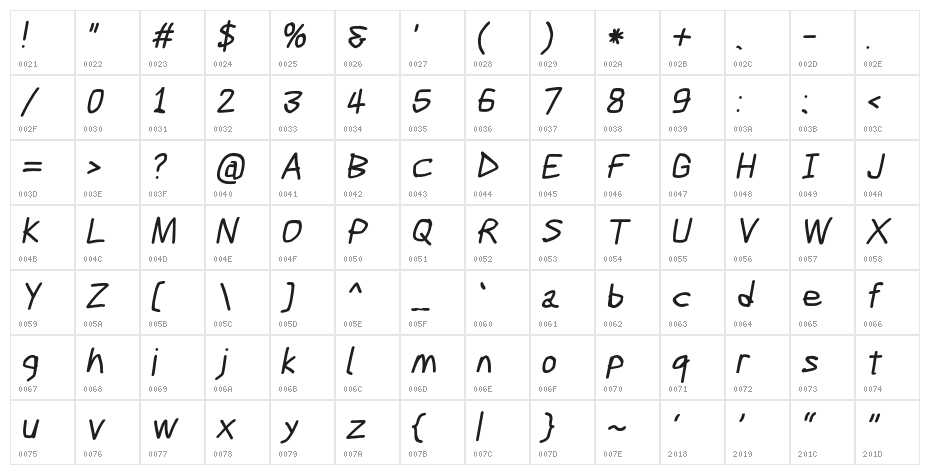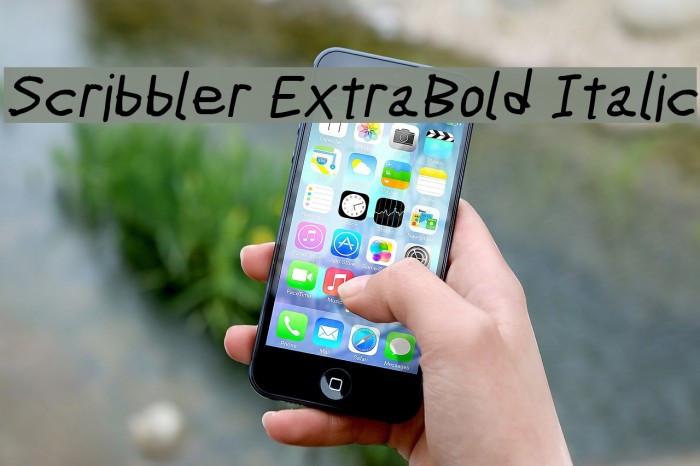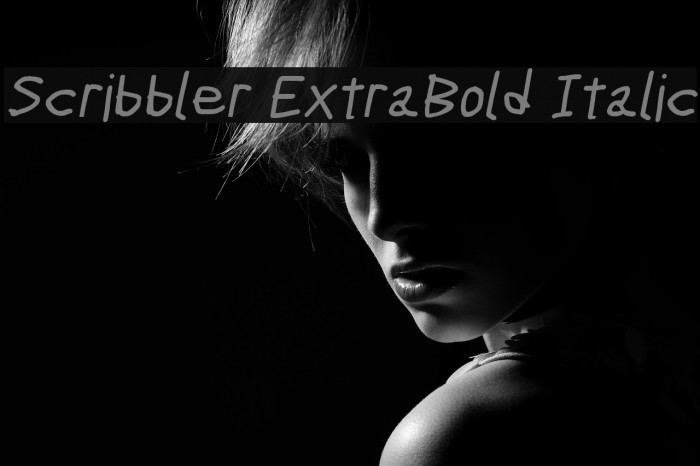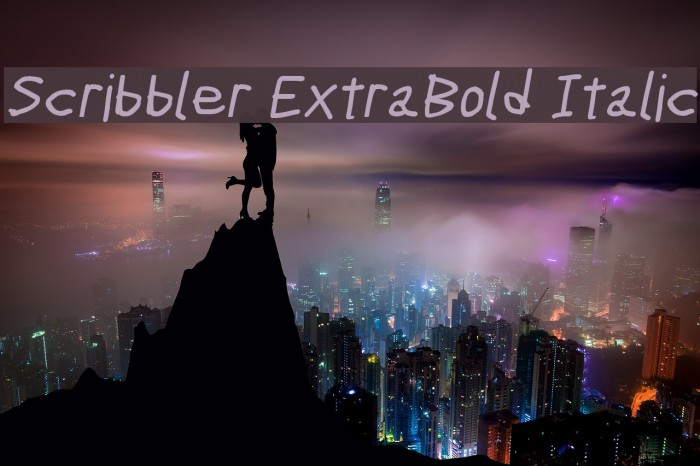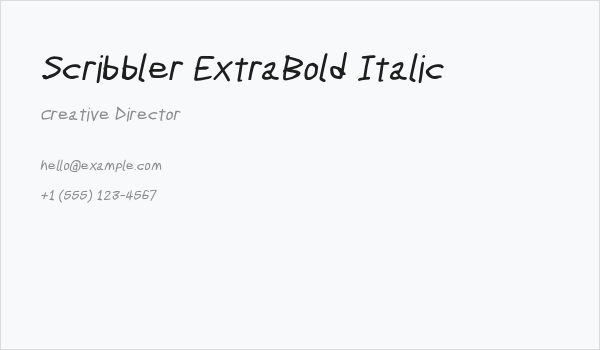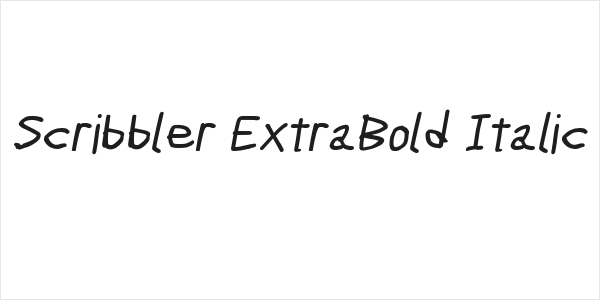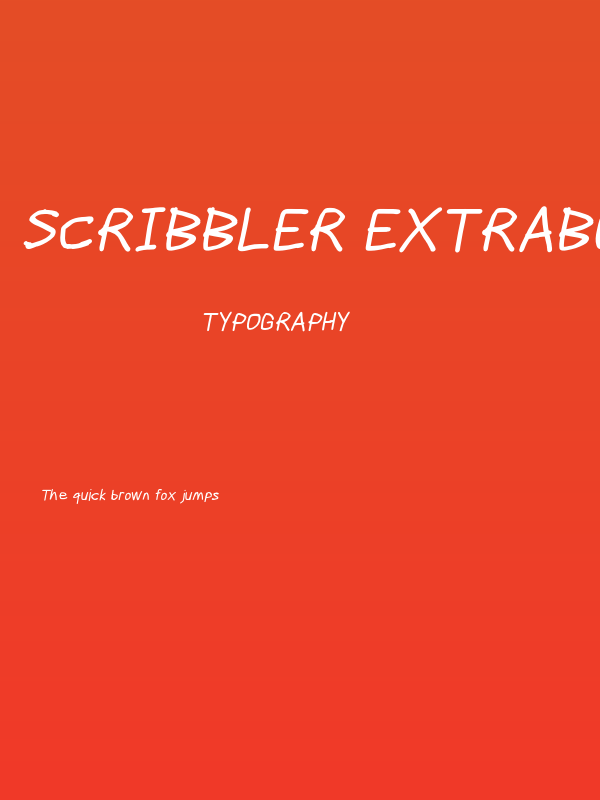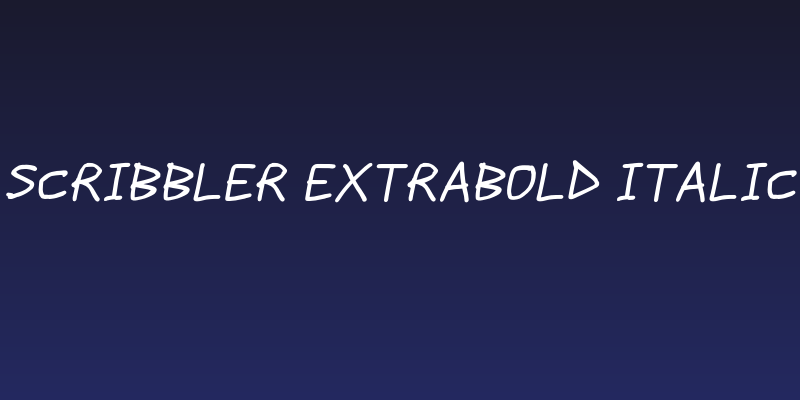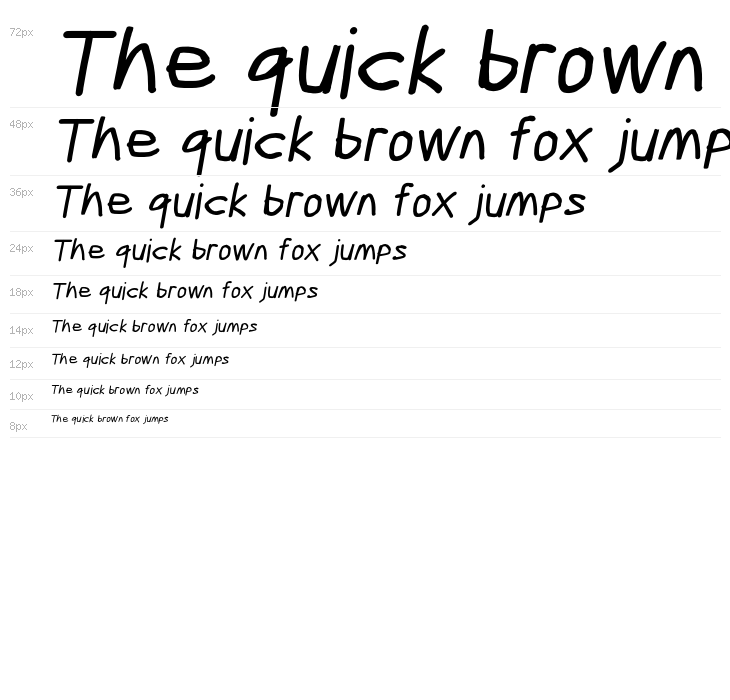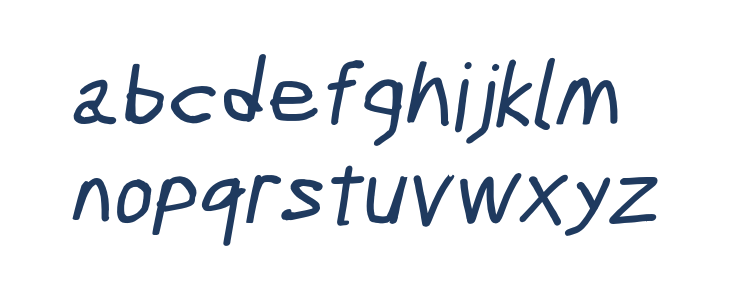
Scribbler ExtraBold Italic Font
Scribbler ExtraBold Italic Description
This font features a playful and informal handwritten style, characterized by its bold and italicized appearance. The letters are slightly slanted, giving a dynamic and energetic feel. The strokes are thick and consistent, providing a strong presence on the page. The characters are well-spaced, ensuring readability while maintaining a casual aesthetic. The font includes a full set of uppercase and lowercase letters, numbers, and a variety of special characters, making it versatile for different uses. Its unique style is reminiscent of a personal scribble, adding a touch of personality and warmth to any project.
| Proposed Projects | Ideal for greeting cards, children's books, playful branding, and casual invitations. |